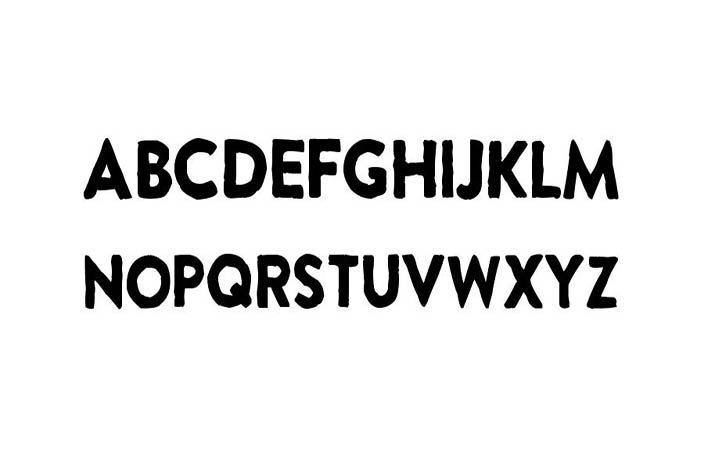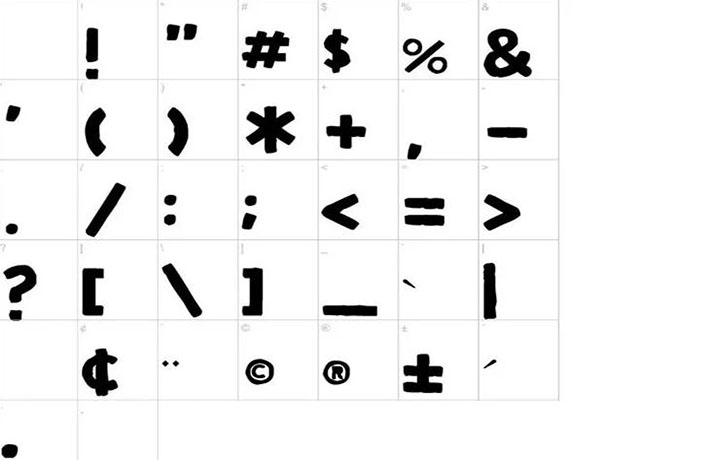
Extra Grotesque Font is a fancy eroded typeface that has a rough, and textured letter for impactful titles and statements. It was designed and published by FontPanda in April 2014.
“This font family comes in a single weight with True Type file format. This single weight contains 105 glyphs like uppercase, symbols, and a few punctuation marks. Moreover, it also supports 34 languages.”
The overall texture looks like a sans serif but then, the designer applied a finished texture that makes it more effective. So, now it looks like its structure is expanding out of line.
Each glyph is created with bold strokes to provide just a great look. So, this great font can be easily implemented to create display or printing designs with a clear structure.
| Style: | Fancy, Eroded, Display |
- Because of its great look, you can use it for a variety of projects, including headers, social media banners, product design, game graphics, movie posters, packaging design, comic books, banners, product design, game titles, shopping Bag, card.
- Printing, unique quotes, brand logos, body text, branding marketing, titles, and many other amazing things.